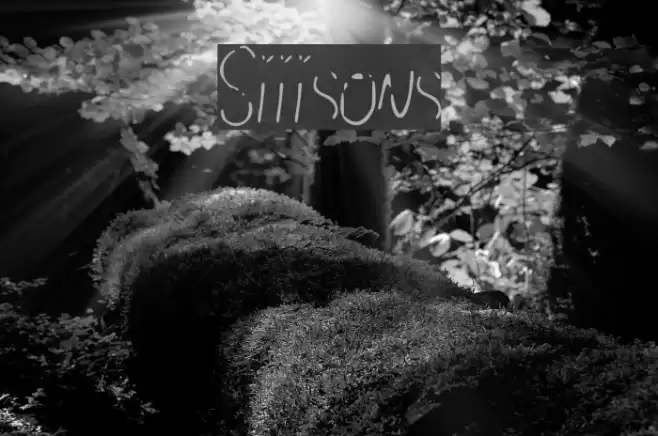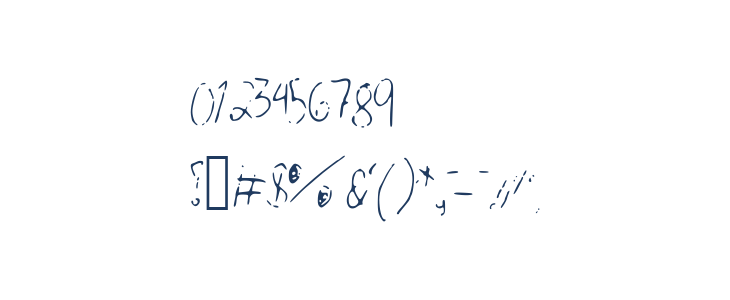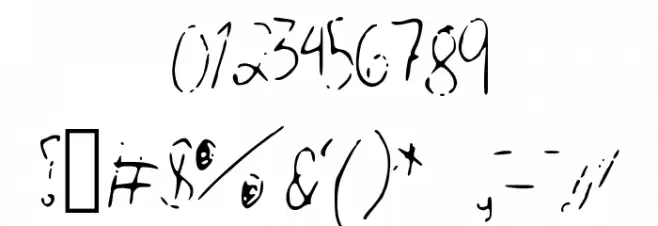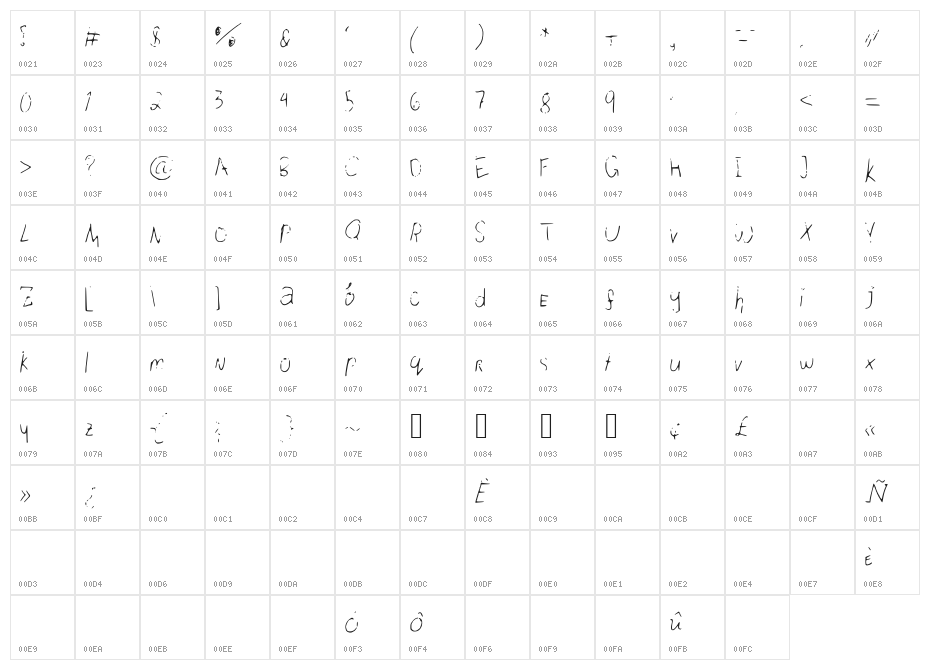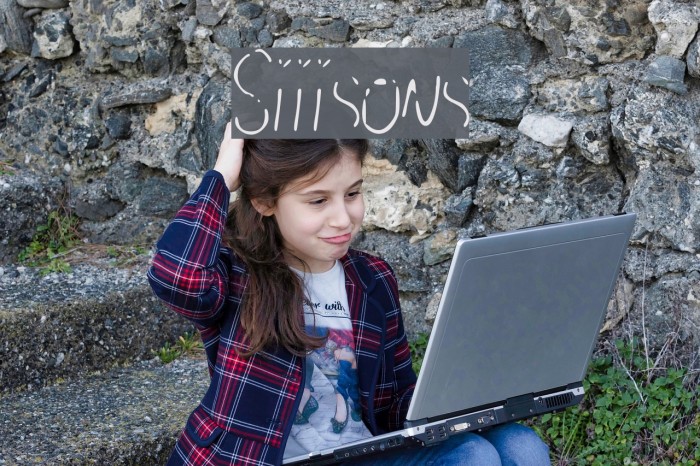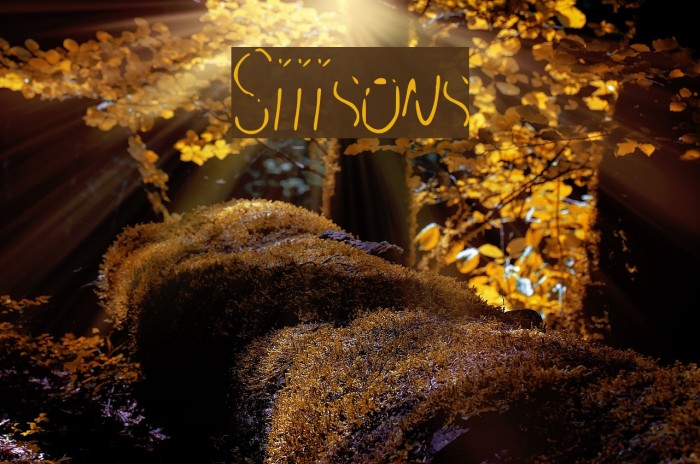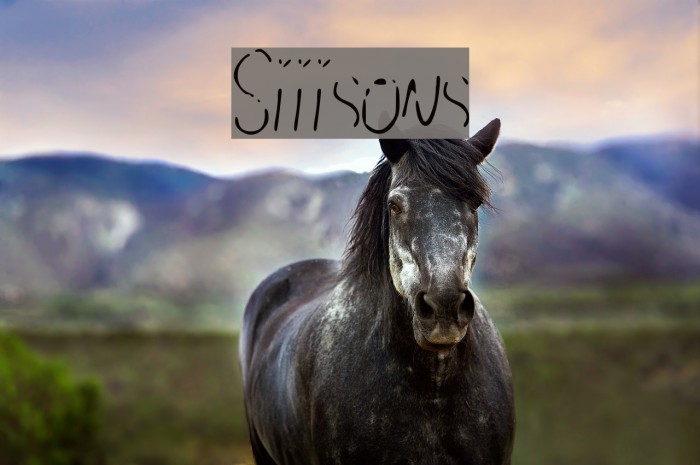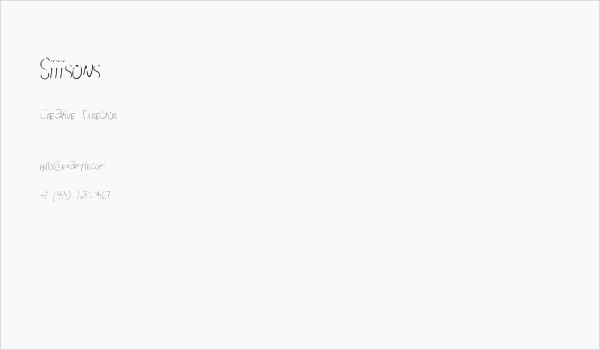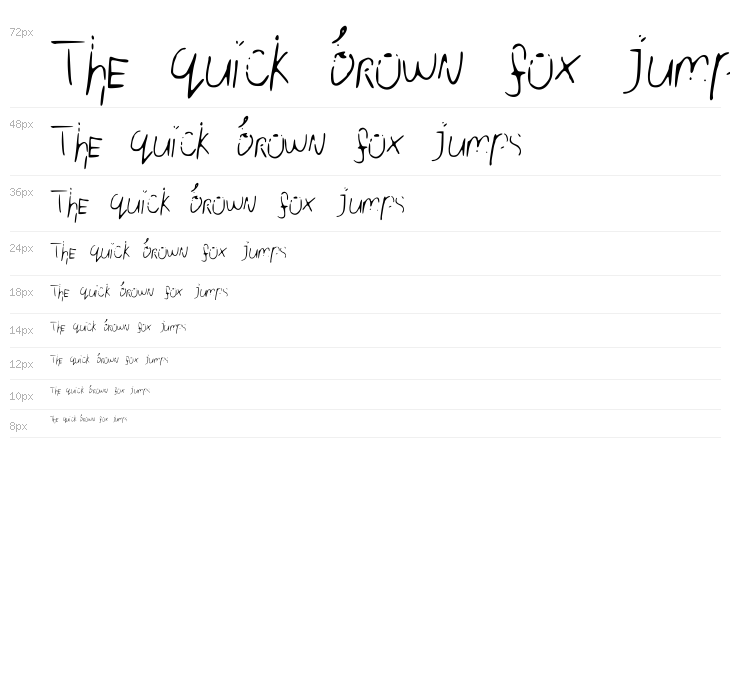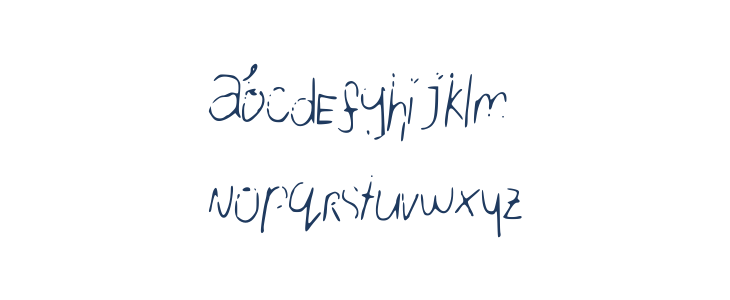
Siiisons Font
Siiisons Description
This font features a unique, hand-drawn style with an artistic flair. The characters are irregular and slightly distorted, giving them a whimsical and playful appearance. The strokes are uneven, with some parts appearing thicker and others thinner, creating a dynamic and lively texture. The uppercase letters are bold and expressive, while the lowercase letters maintain a consistent flow, adding to the overall charm. Numbers and special characters follow the same quirky design, making the font suitable for creative and informal projects.
A whimsical, hand-drawn font with irregular, playful strokes from Uncategorized fonts.
- Proposed Projects: Ideal for children's books, creative posters, artistic branding, and playful invitations.